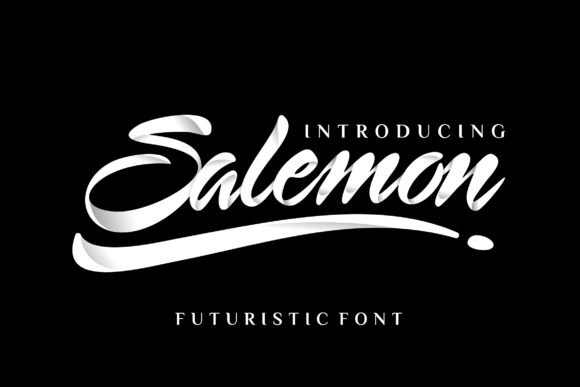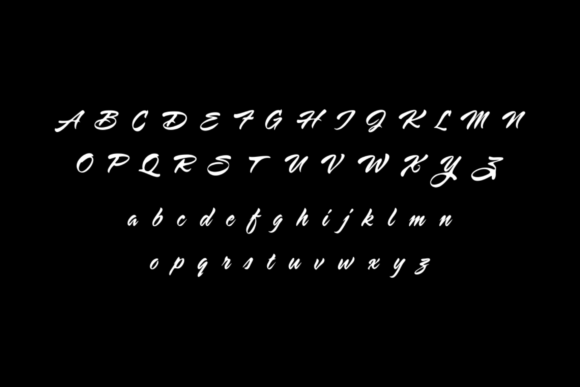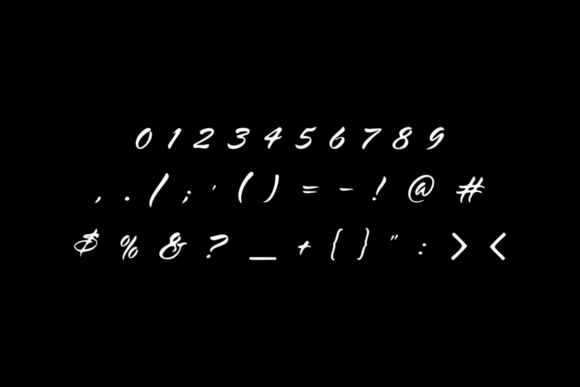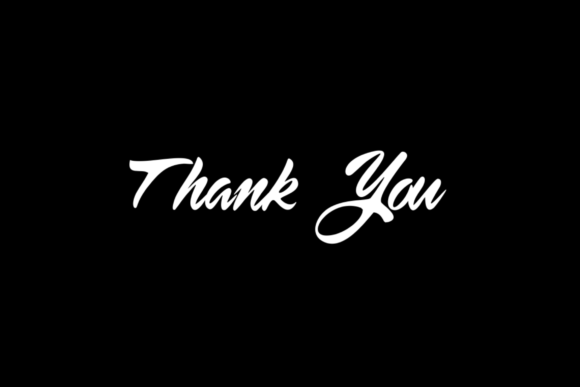
Salemon Font
About Salemon Font
Salemon is a bold and authentic handwritten font. It is suitable for any branding project like logo, t-shirt printing, sporting designs, and various other creations.